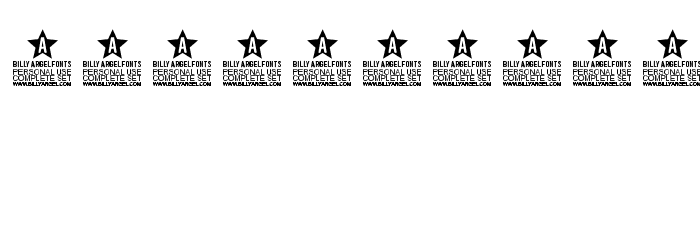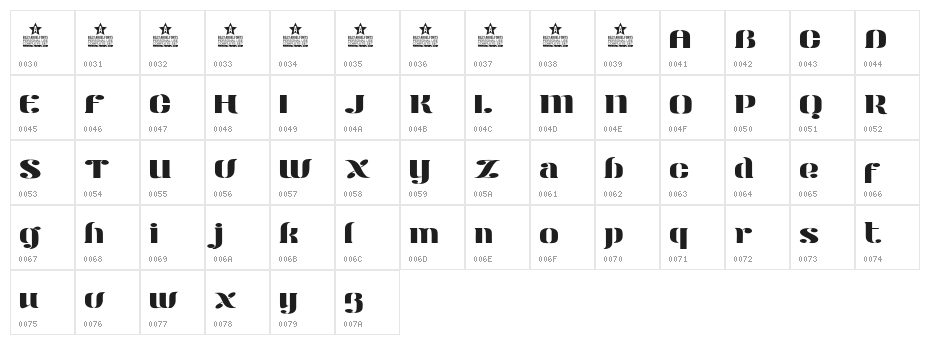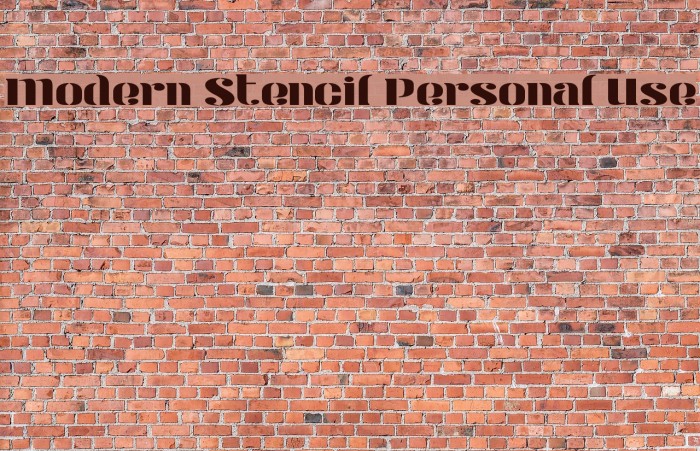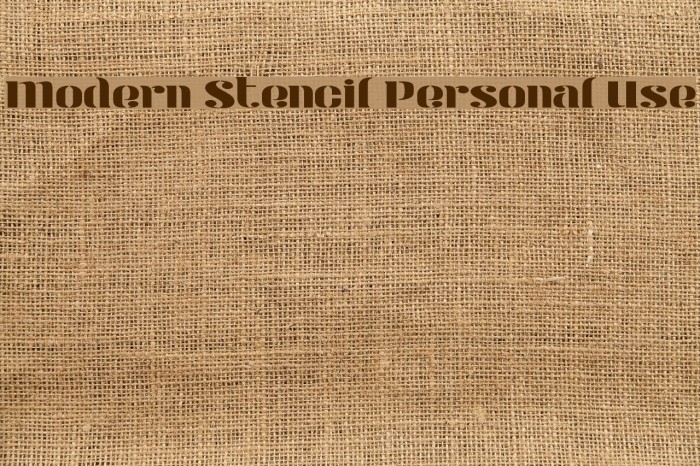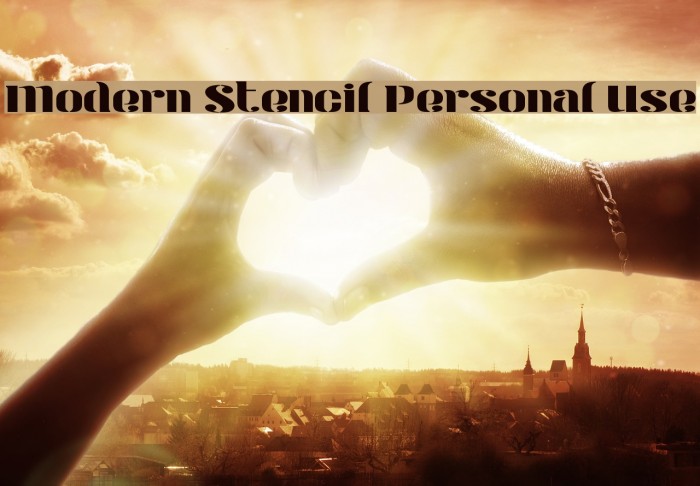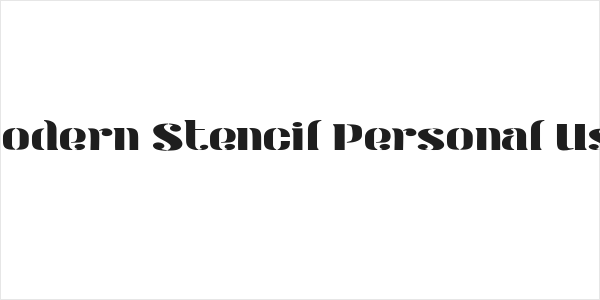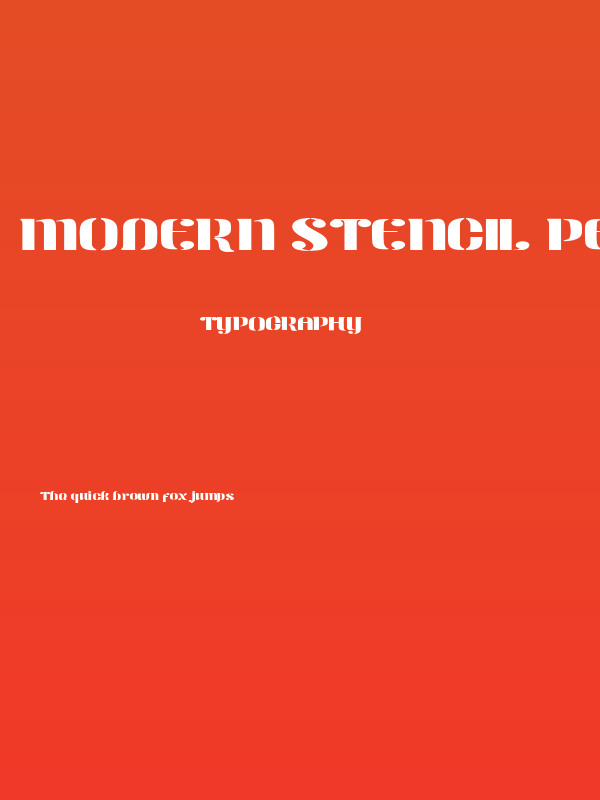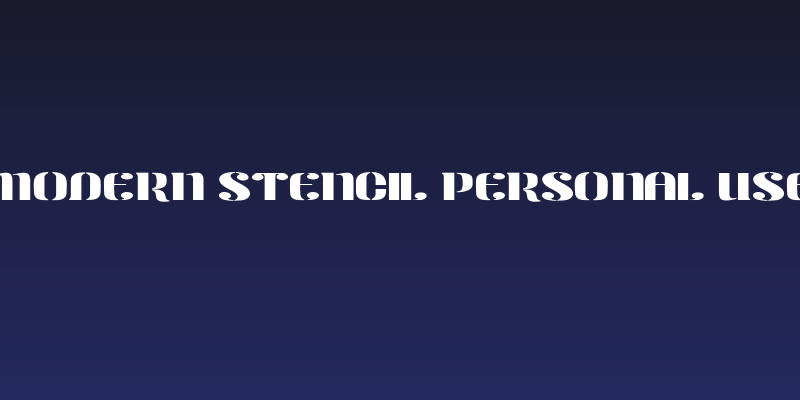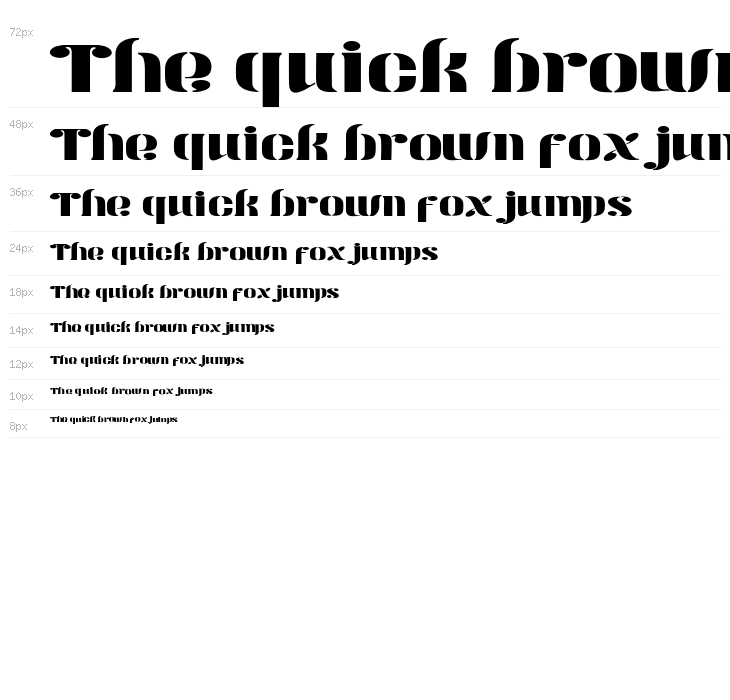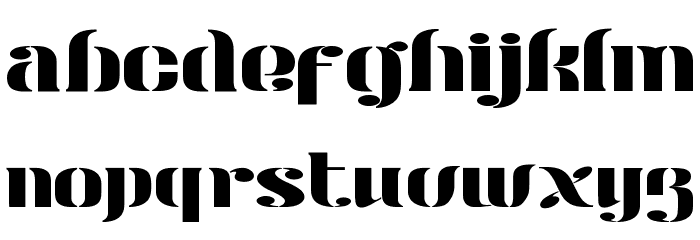
Modern Stencil Personal Use Font
Modern Stencil Personal Use Description
This font features a modern stencil design with bold, geometric shapes and clean lines. The characters are distinct with cut-out sections that give a contemporary and industrial feel. The uppercase and lowercase letters maintain a consistent style, emphasizing a strong visual impact. The numbers and special characters follow the same aesthetic, ensuring uniformity across all elements. The font's design is both functional and decorative, making it suitable for a variety of creative applications.